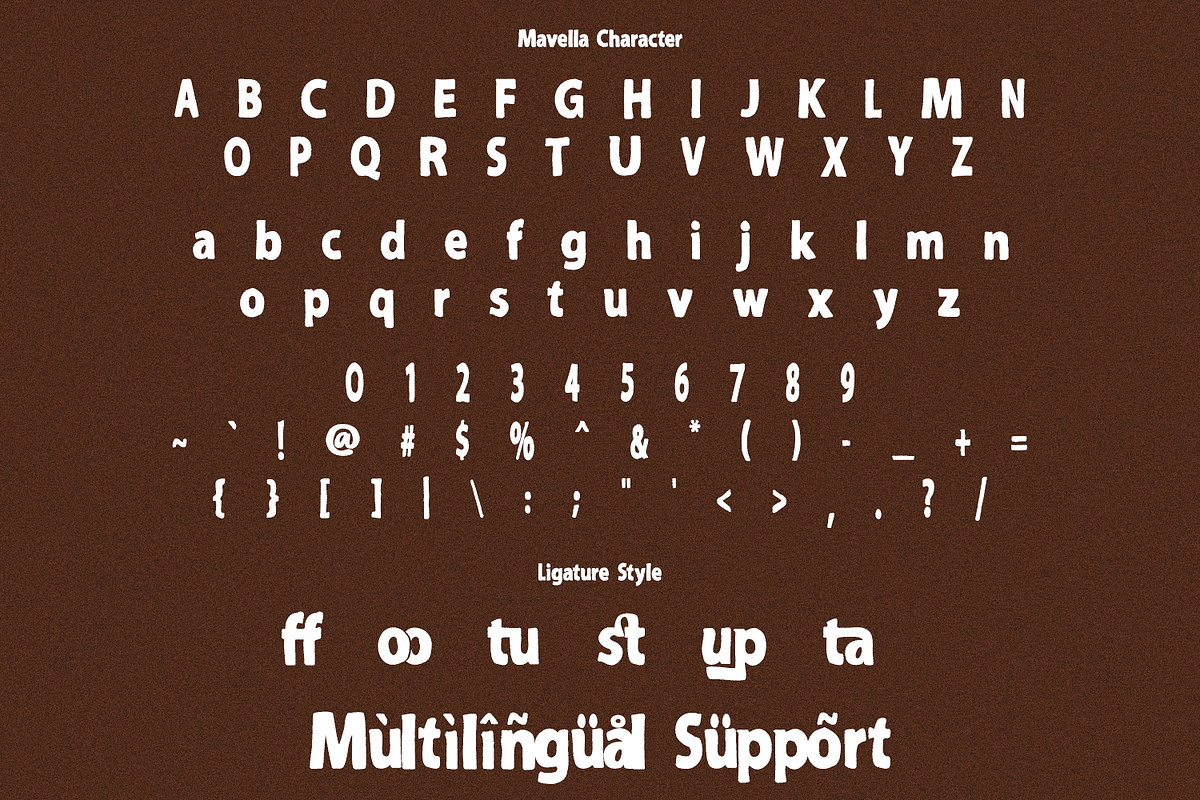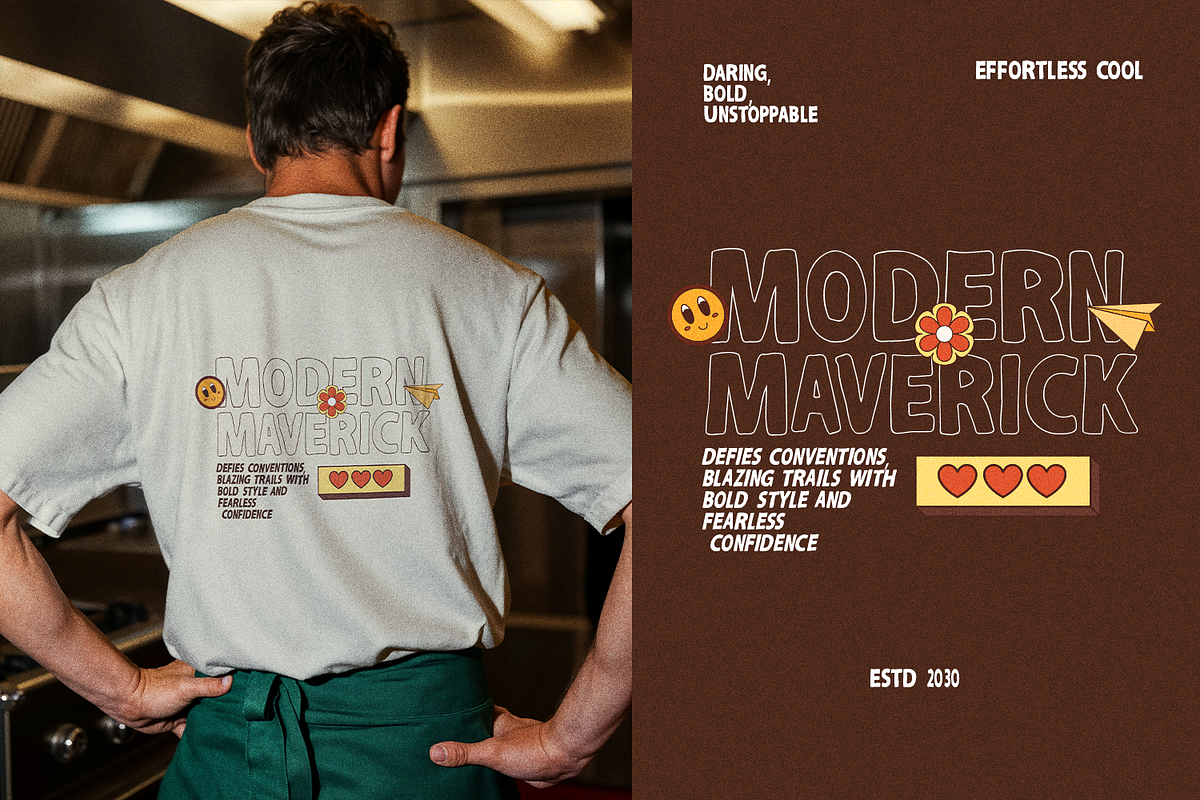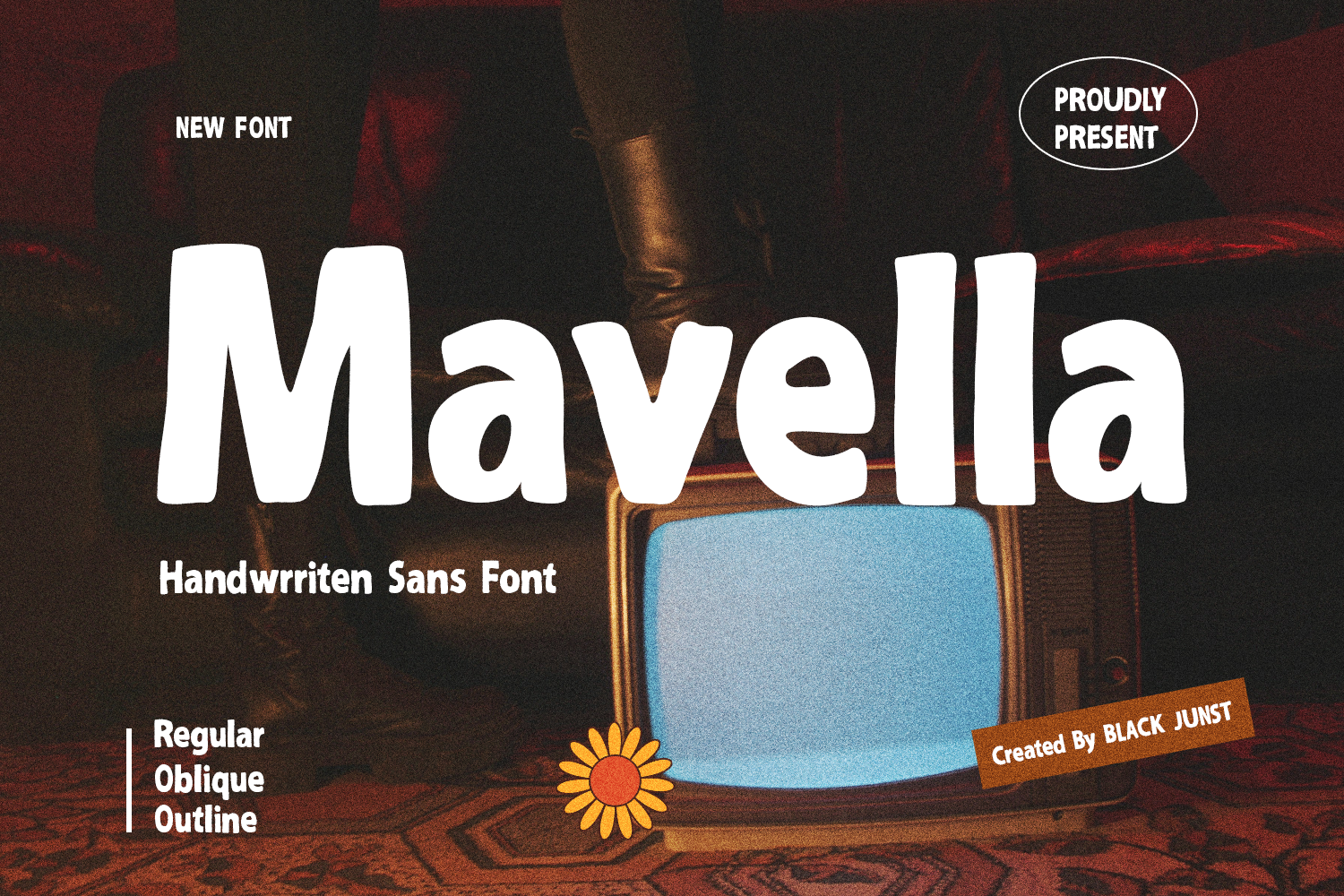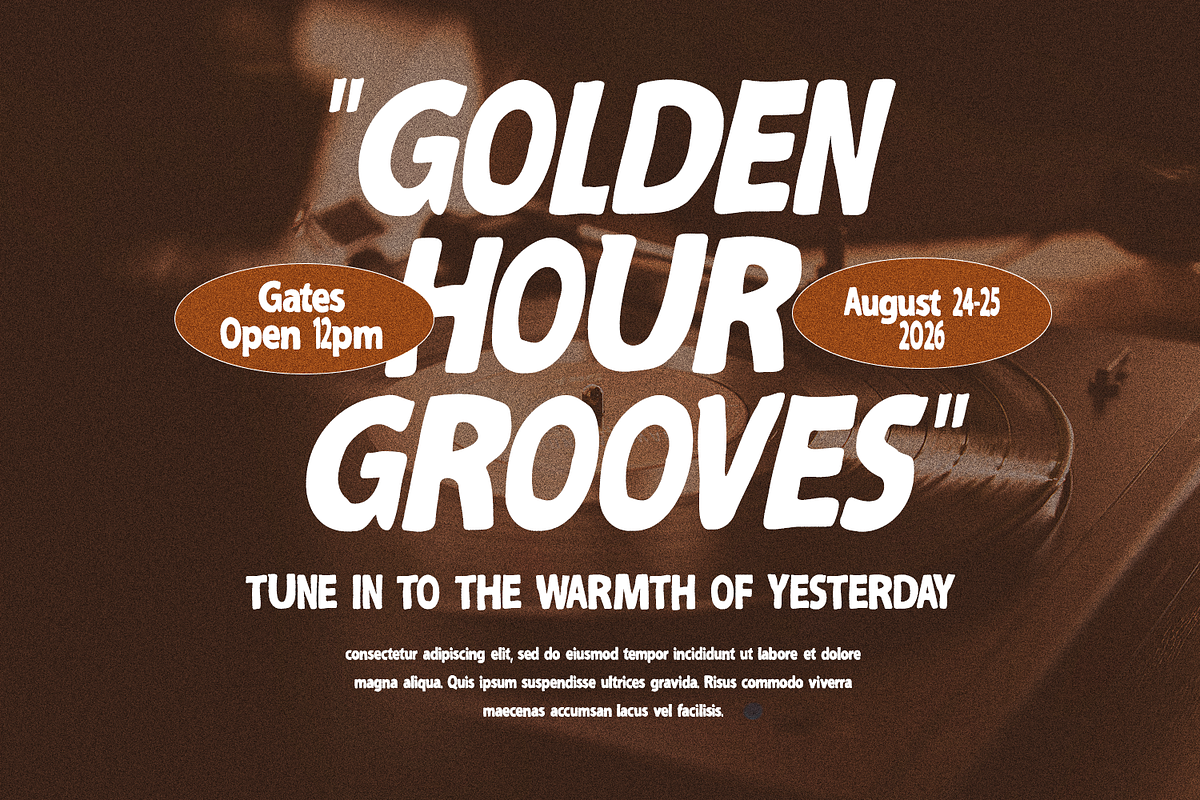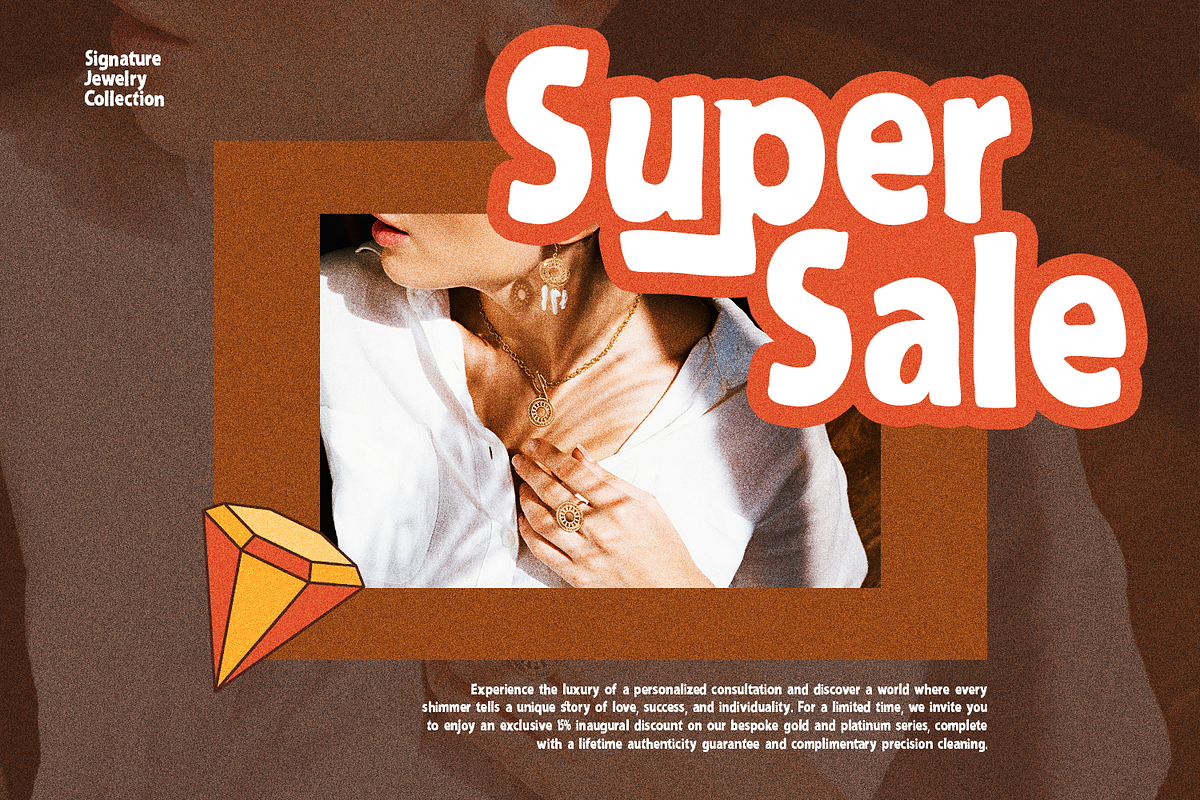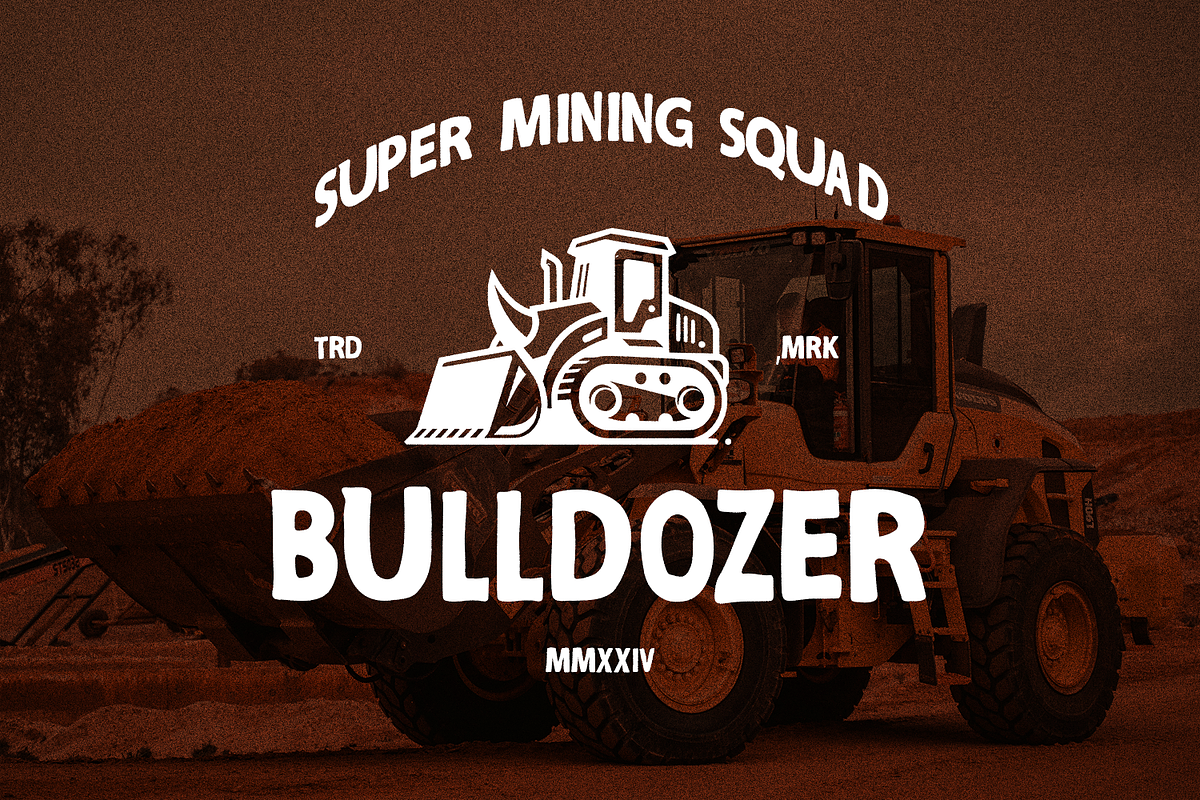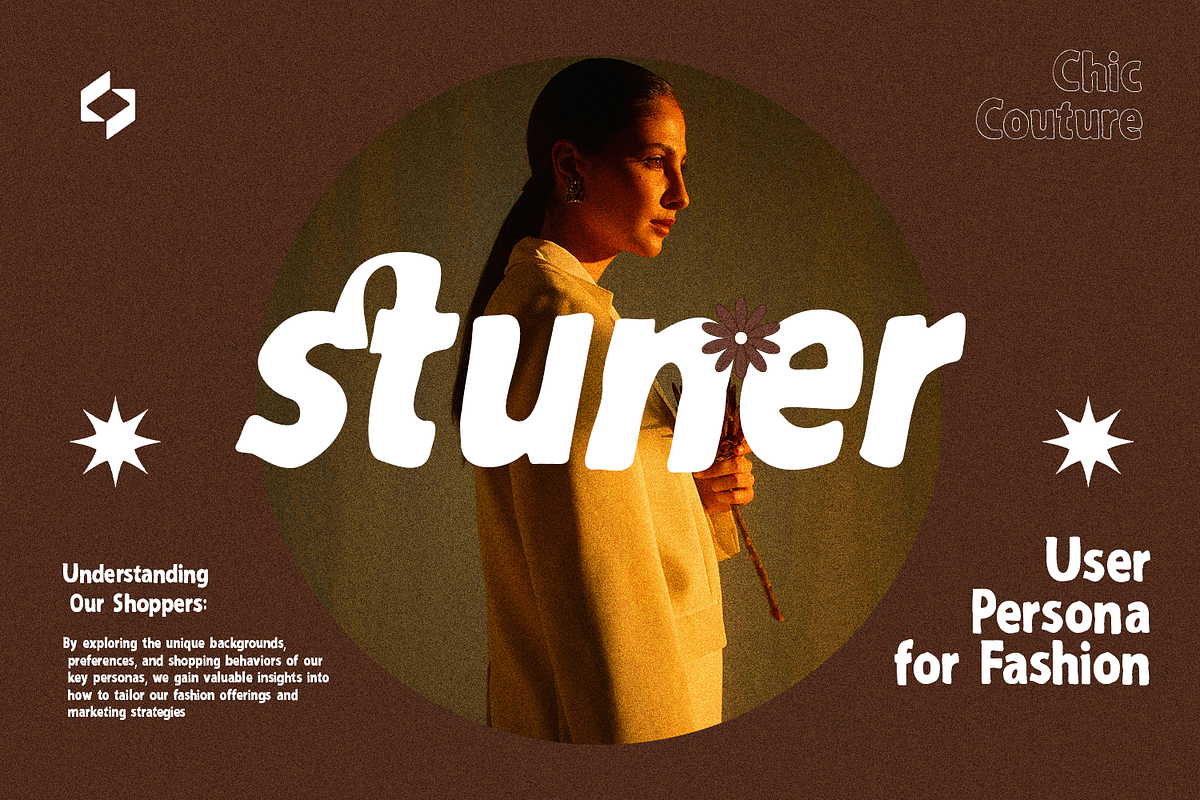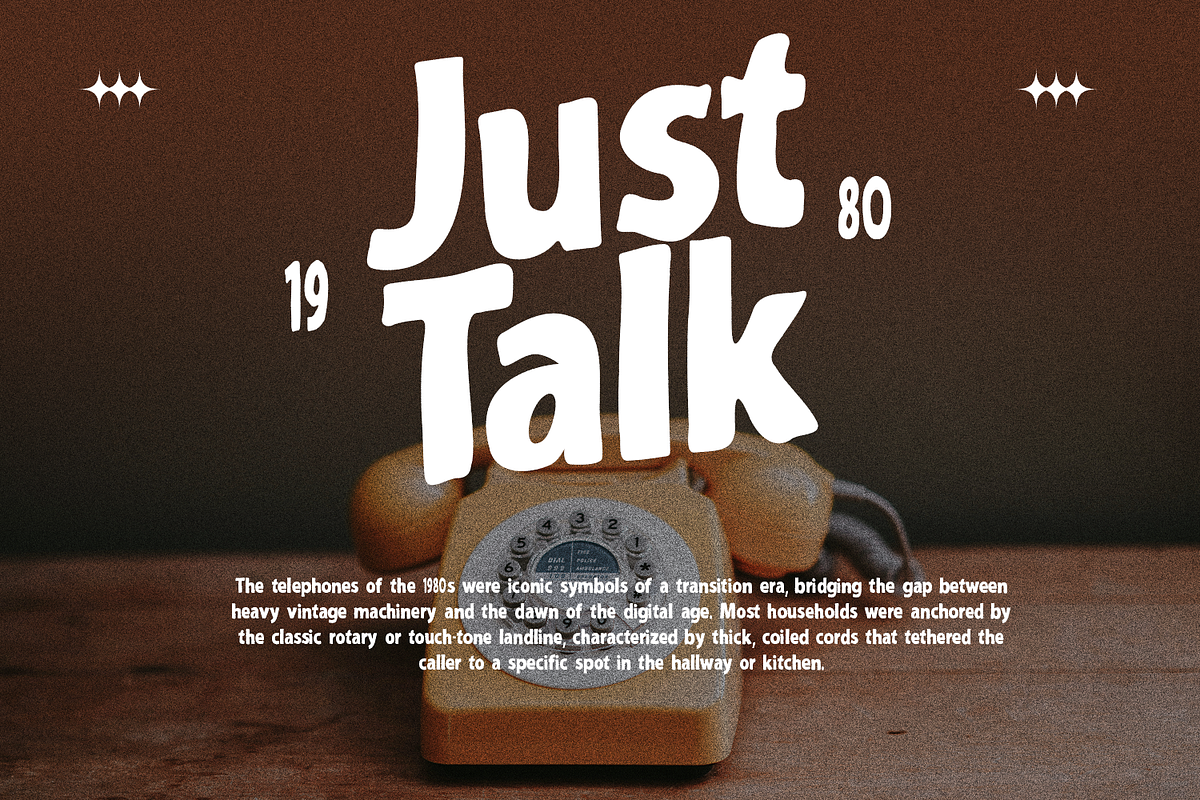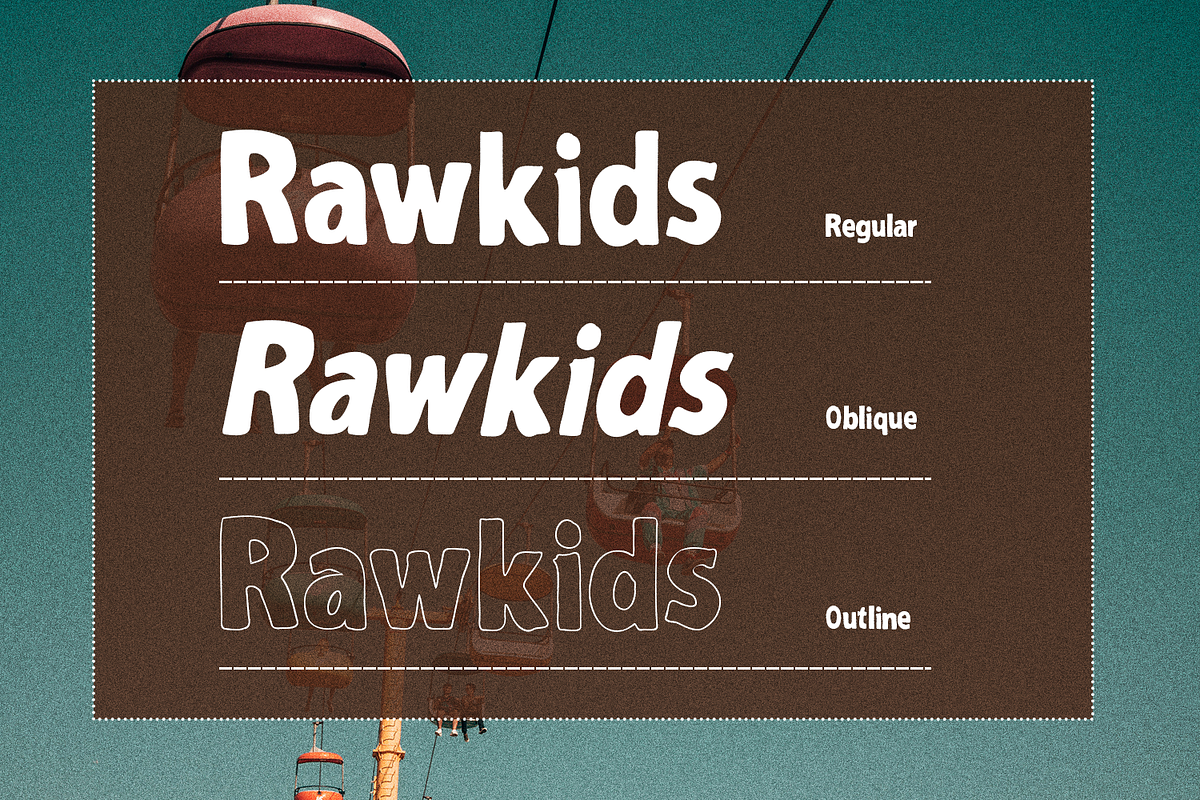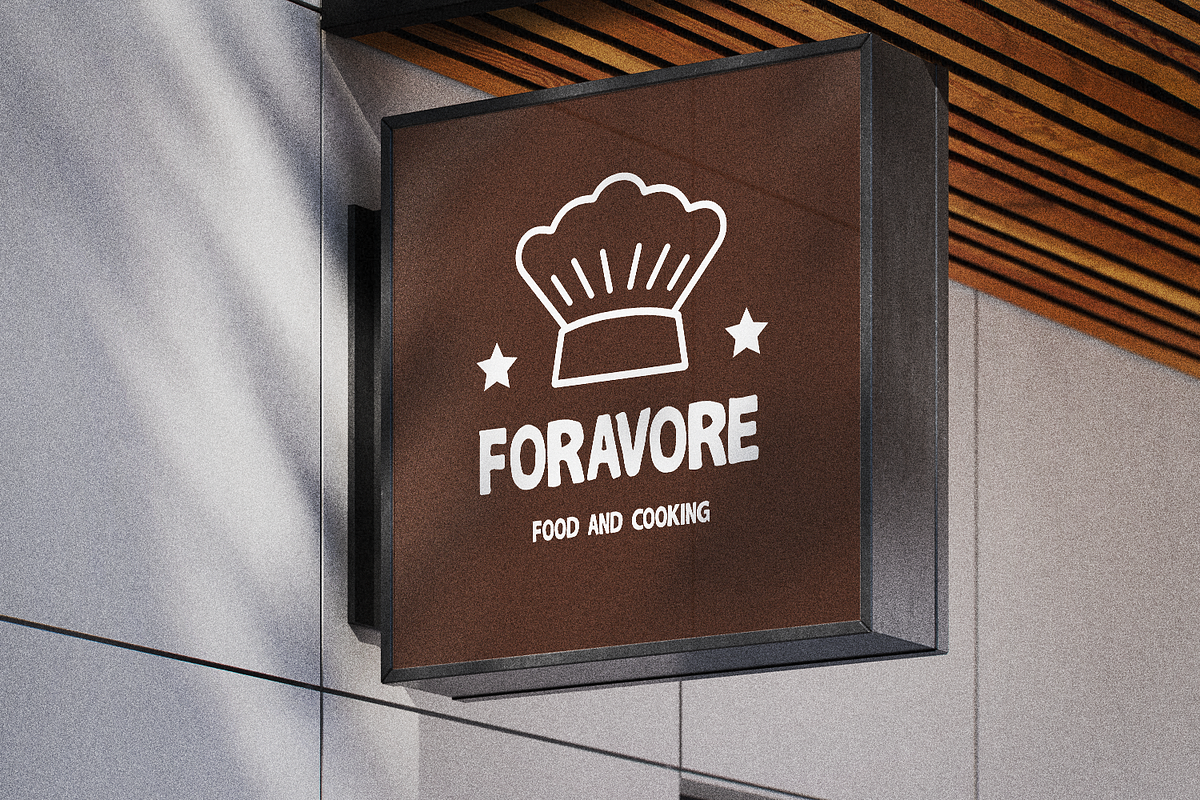
Mavella - Handmade font
Mavella is a bold handwritten sans font designed to bring a soft, playful, and friendly touch to your designs. With its chunky rounded shapes and organic flow, Mavella delivers a perfect balance between fun and readability, making it highly versatile for modern creative projects.
This font is ideal for branding, packaging, logos, social media content, kids products, and food & beverage designs. Whether you're creating eye-catching headlines or building a warm brand identity, Mavella helps your message stand out with personality and charm.
Mavella comes with multiple styles including Regular, Oblique, and Outline, giving you flexibility to mix and match for more dynamic and engaging visuals.
Perfect for designers, creators, and business owners who want a font that feels approachable, bold, and modern.
Perfect For :
- Logo & Branding
- Coffee & Cafe Packaging
- Fashion & Streetwear
- Skincare & Beauty
- Posters & Social Media
- Editorial & Magazine
- Stylish Alternates & Ligatures
- Regular & Italic Style
- Handcrafted Letterforms